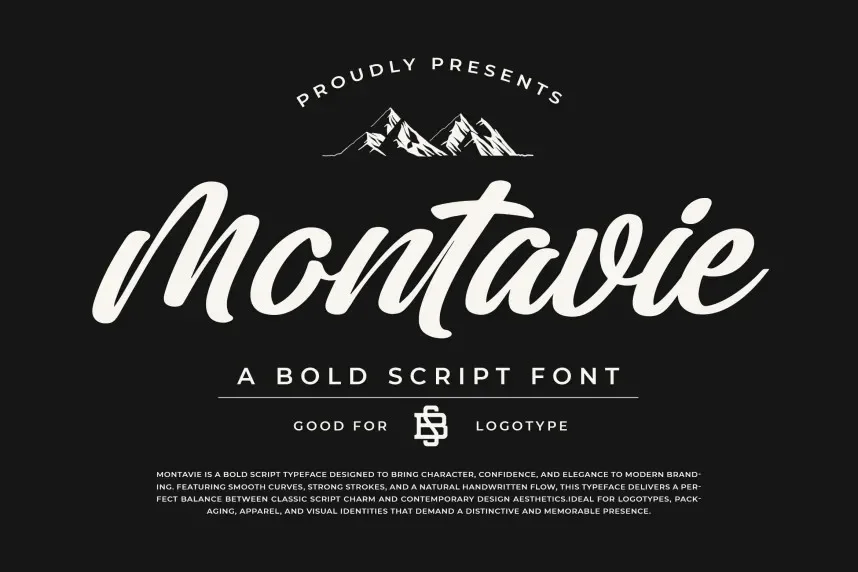
Montavie Font is a modern serif typeface designed for elegance and readability. Its high contrast between thick and thin strokes, along with graceful curves, makes it ideal for branding and high-end design projects. The font’s formal, yet approachable style ensures clarity, even in smaller sizes.